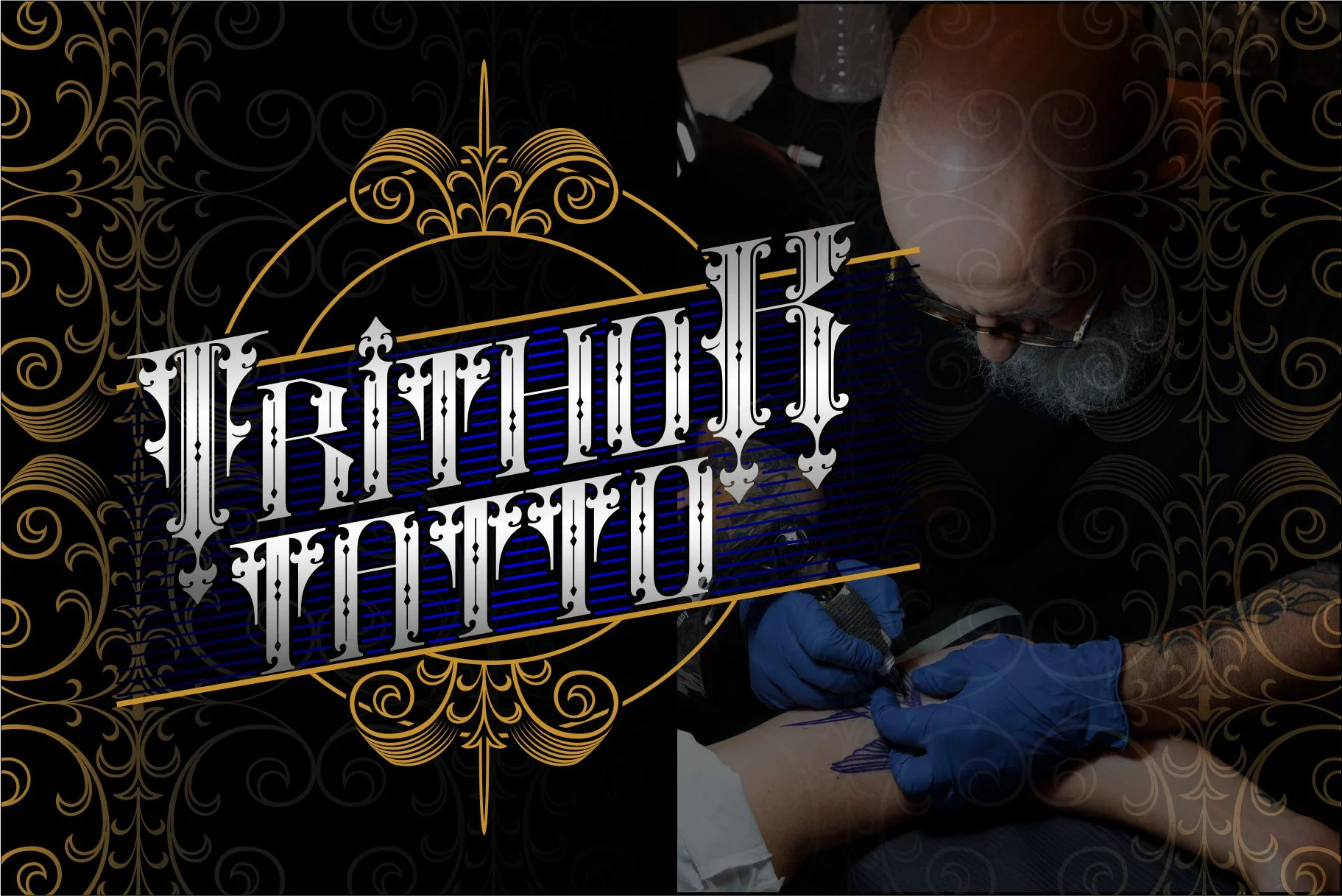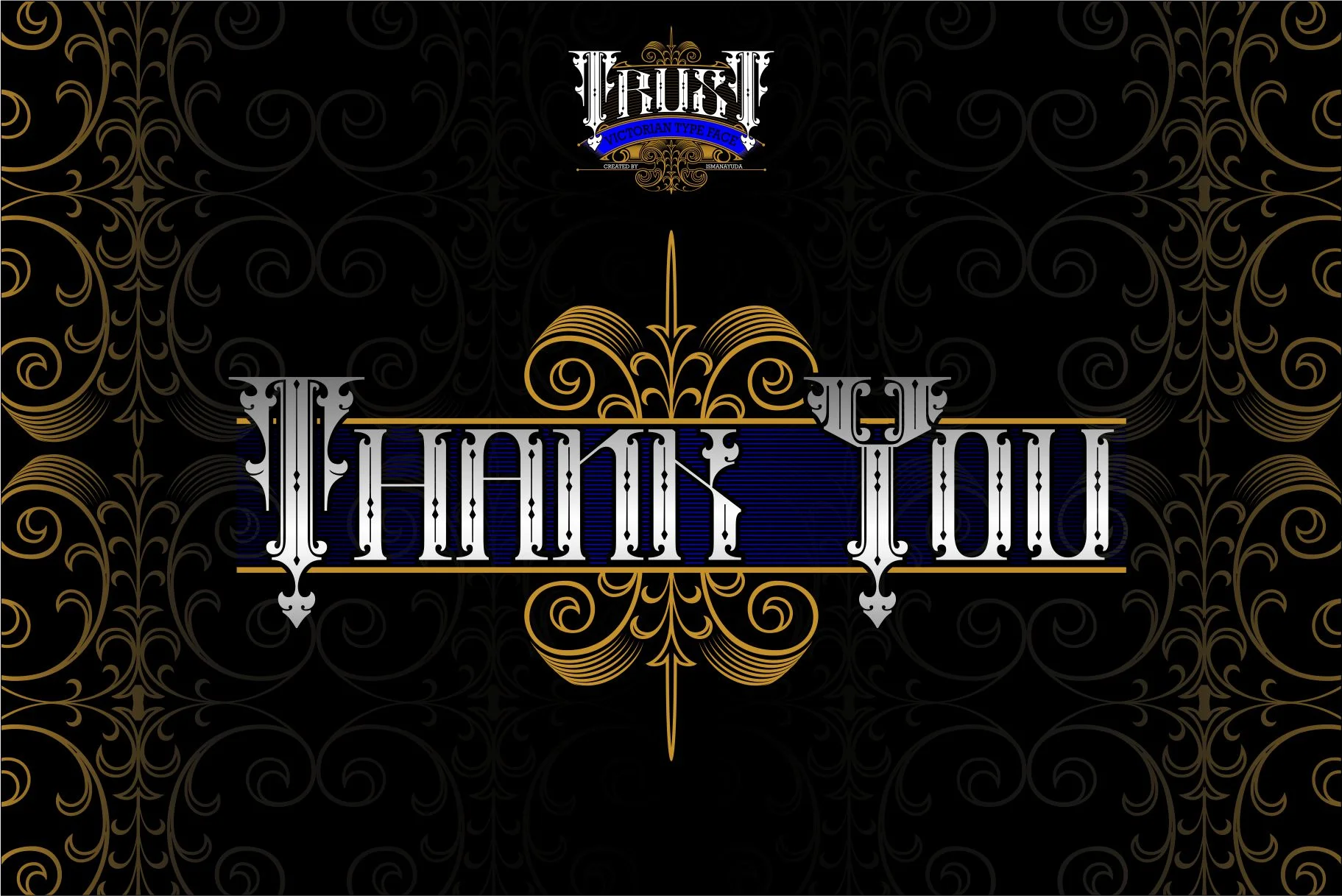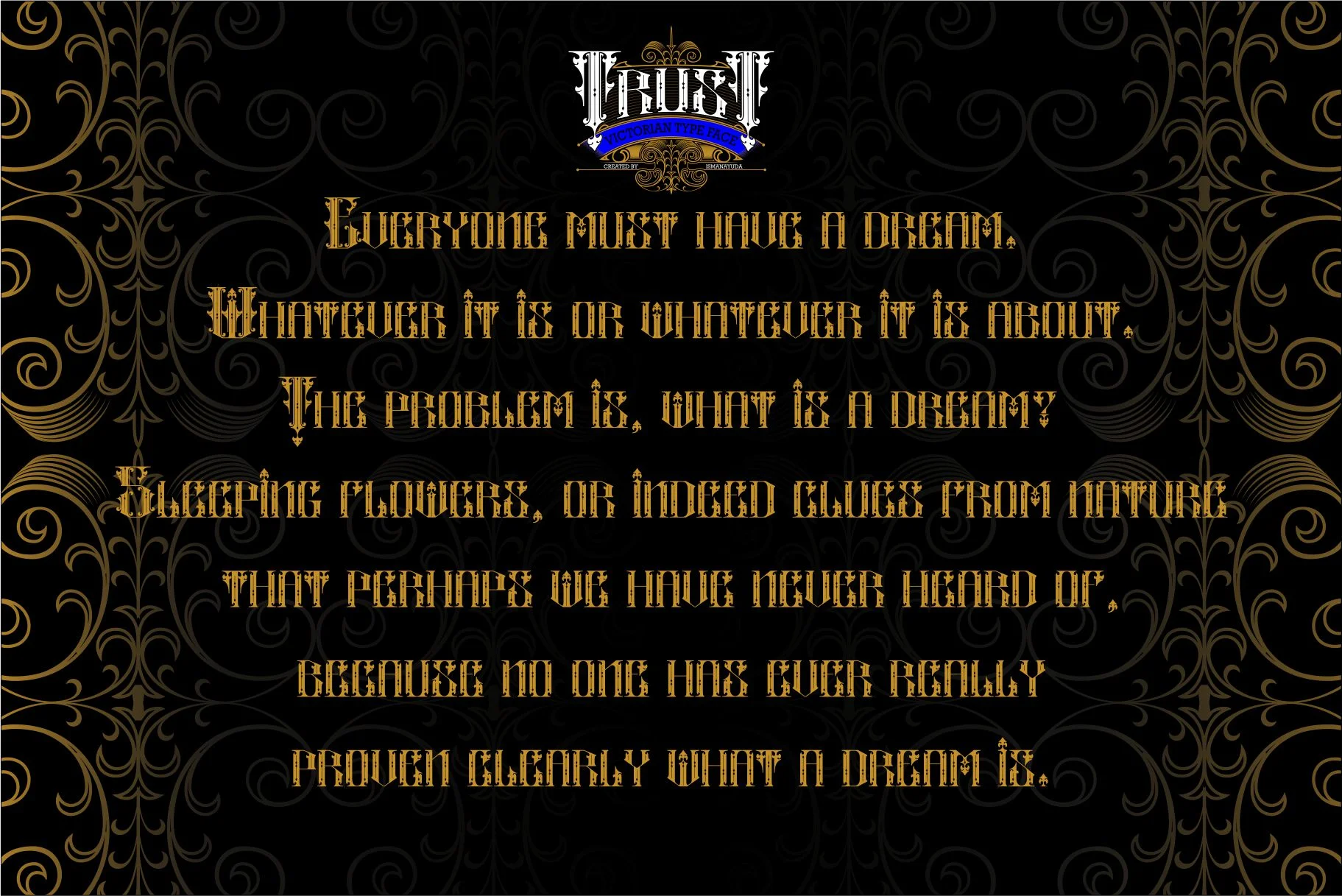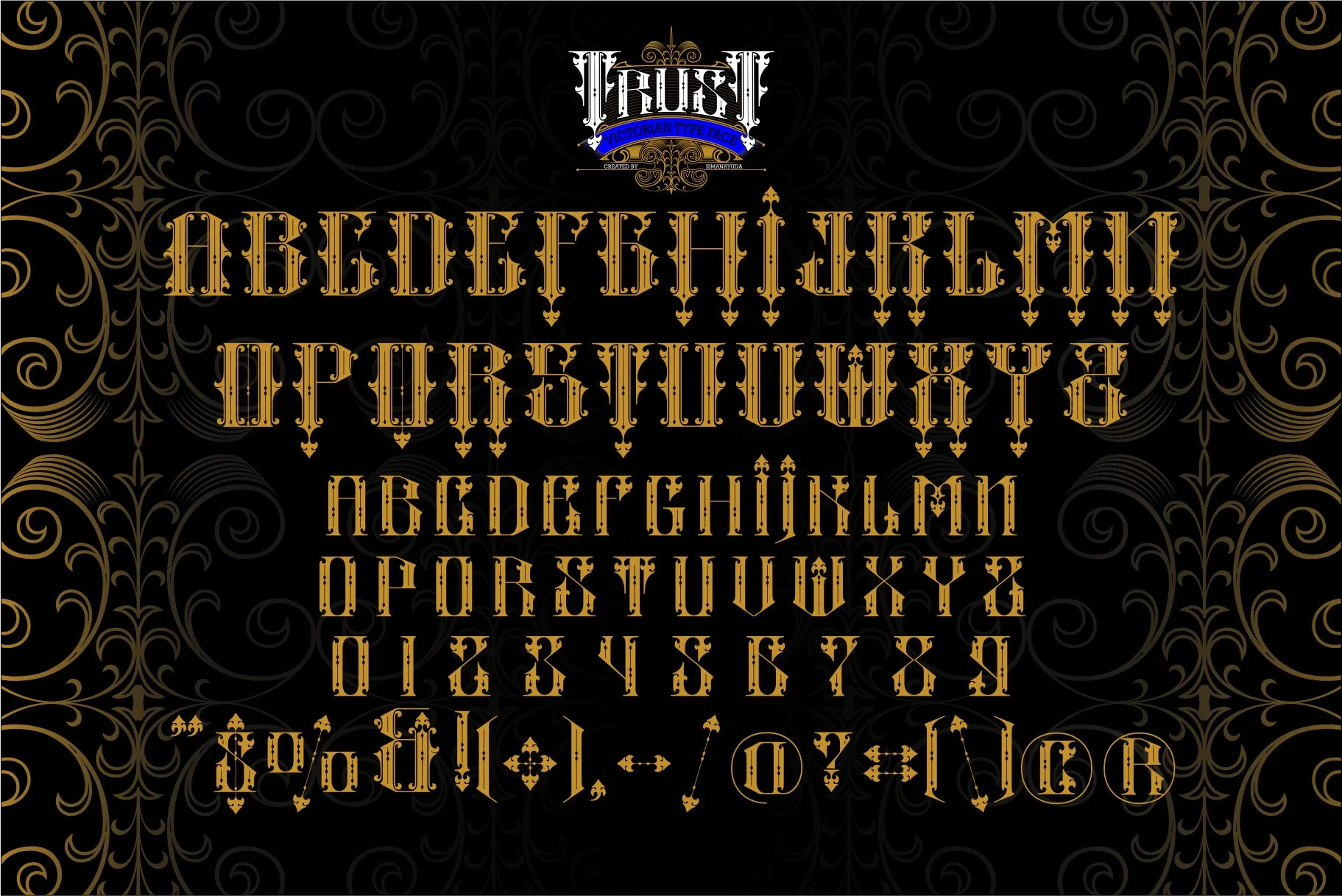
Trust
TRUST is a bold Blackletter Victorian font that exudes timeless charm and classic appeal. It is characterized by an intricate, ornate design featuring sharp, vertical strokes typical of traditional blackletter scripts, combined with sophisticated Victorian-style flourishes. This high-impact "Victorian Type Face" carries the flow of traditional black letters while incorporating beautiful, charming stylistics that add a touch of vintage sophistication to any project. It is specifically designed to give text a sense of trustworthiness and heritage, making it ideal for specialized branding, logo design, and historical-themed signage.